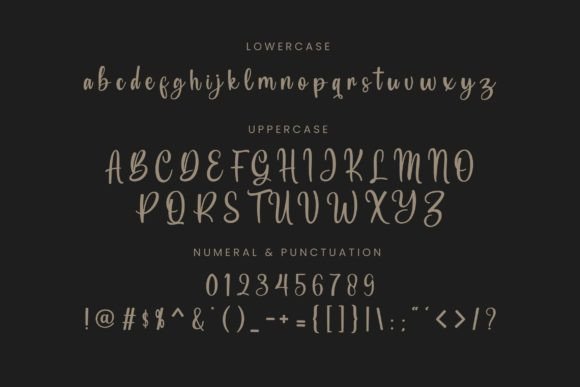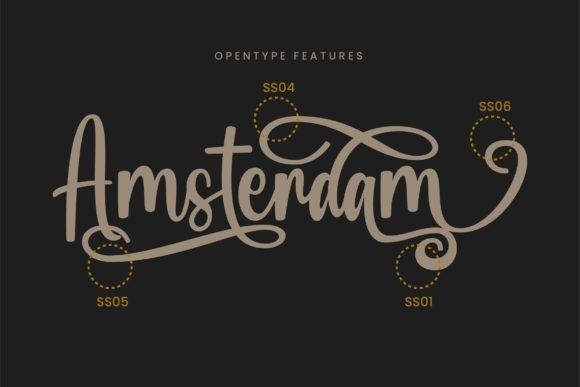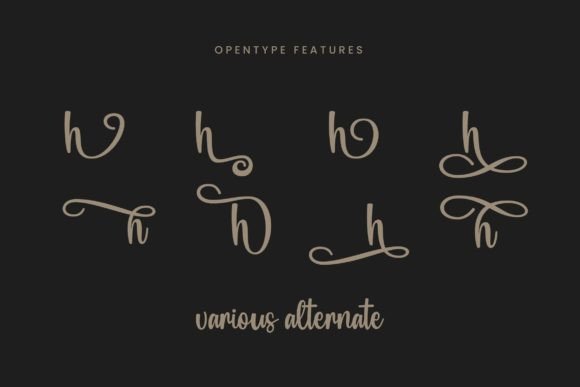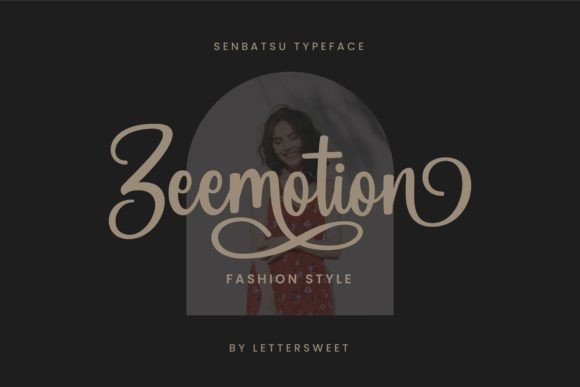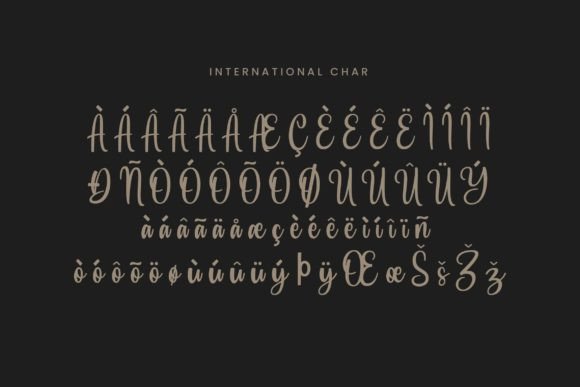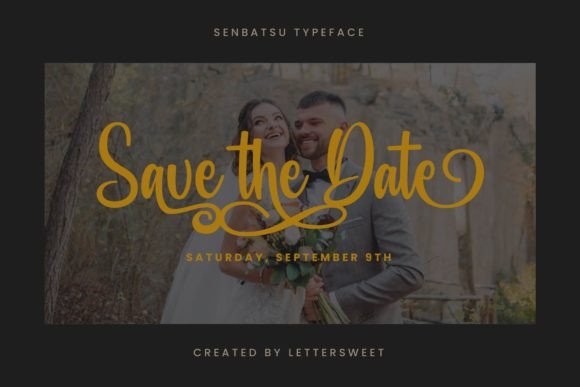
Introduction to Senbatsu Font
Do you remember the moment when you finally found the perfect font to match your creative vision? For many designers, this moment is a game-changer. It’s the spark that sets off a chain reaction of inspiration, leading to a beautiful and unique design that truly stands out. For those seeking a romantic and elegant touch, the Senbatsu Font is an excellent choice.
This stunning script font is perfect for designers looking to add a lovely handwritten touch to their creative projects. With its beautiful and intricate design, it’s no wonder why Senbatsu Font has become a go-to resource for designers. Whether you’re working on a wedding invitation, thank you card, or business card, this high-quality font is sure to make your design shine.
One of the best things about Senbatsu Font is its PUA encoding, which allows designers to access all of its glyphs and swashes with ease. This means you can customize your design to fit your needs, without any hassle. And, as a design resource, it’s available for free download, making it an excellent addition to any designer’s toolkit.
Key Features of Senbatsu Font
Honest Review: Senbatsu Font
I recently came across the Senbatsu Font and I must say, it’s been a valuable addition to my design resource collection. The font is a beautiful, high-quality resource that can elevate any creative project.
- What works well: ✨ The font’s sleek and modern design makes it perfect for a variety of projects, from logos to digital displays.
- What works well: ✨ The transparent background option is a game-changer for designers who need to create designs that can be easily overlaid on different backgrounds.
While the Senbatsu Font is a great resource, there are a few limitations to consider: ⚠️ The font may not be suitable for projects that require a lot of customisation, as it’s a relatively simple design.
Overall, I’m impressed with the Senbatsu Font. It’s a high-quality, versatile font that can be a valuable asset for any designer. With its modern design, transparent background option, and free download availability, it’s a must-have resource for any creative project.
Tips for Getting the Most Out of Senbatsu Font
Experiment with different font sizes, colors, and styles to create unique and eye-catching designs.
Use the Senbatsu Font in combination with other design elements to create a cohesive and visually appealing design.
Common Use Cases for Senbatsu Font
The Senbatsu Font is ideal for creating designs for various creative projects, including:
Graphic design
Logo design
Typography design
Infographic design
Alternatives to Senbatsu Font
The Great Vibes Font is a high-quality, elegant script font ideal for creative projects that require a touch of sophistication. It features a transparent background, making it perfect for use on various design resources. You can download the font for free, making it a great alternative to Senbatsu Font. Use it for invitations, logos, or any design that needs a delicate, handwritten feel.
Compared to Senbatsu Font, Great Vibes Font has a more refined and classic look, making it suitable for formal and professional designs. It lacks the bold and playful feel of Senbatsu Font, but excels in providing a sophisticated and elegant look.
Q: What is the recommended resolution for using Senbatsu Font?
The recommended resolution for using Senbatsu Font is 300 DPI (dots per inch) or higher. This ensures high-quality rendering of the font, especially when used in large-scale designs or for printing purposes.